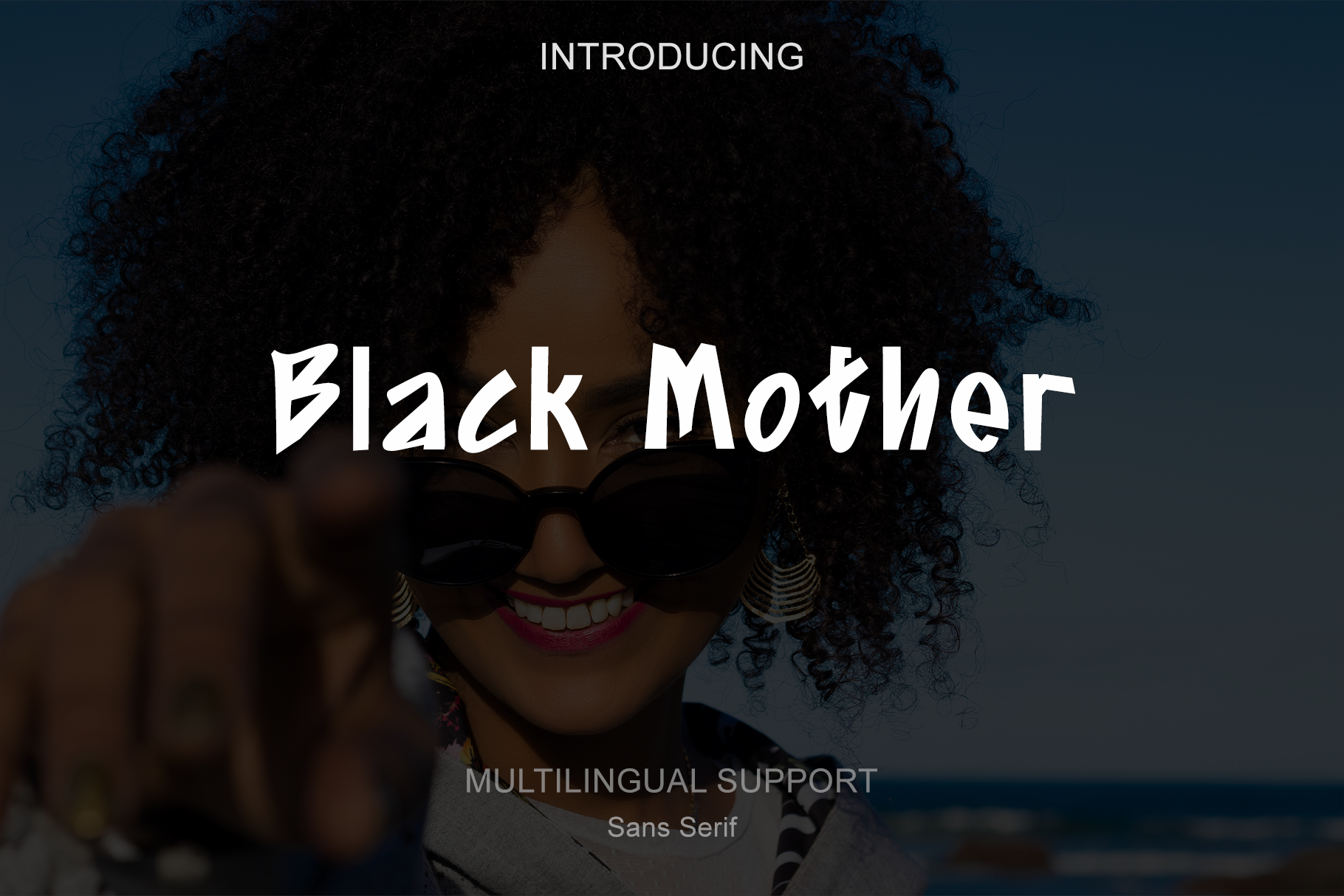
Black Mother - Music font
Black Mother is a Sans Serif font inspired by musical. The font looks casual and playful. It's perfect any musical-themed, jazzy design. Suitable for any design needs, branding, urban design, modern advertising design, Book/Cover Title, special events, adventures, headlines, clothing and more.